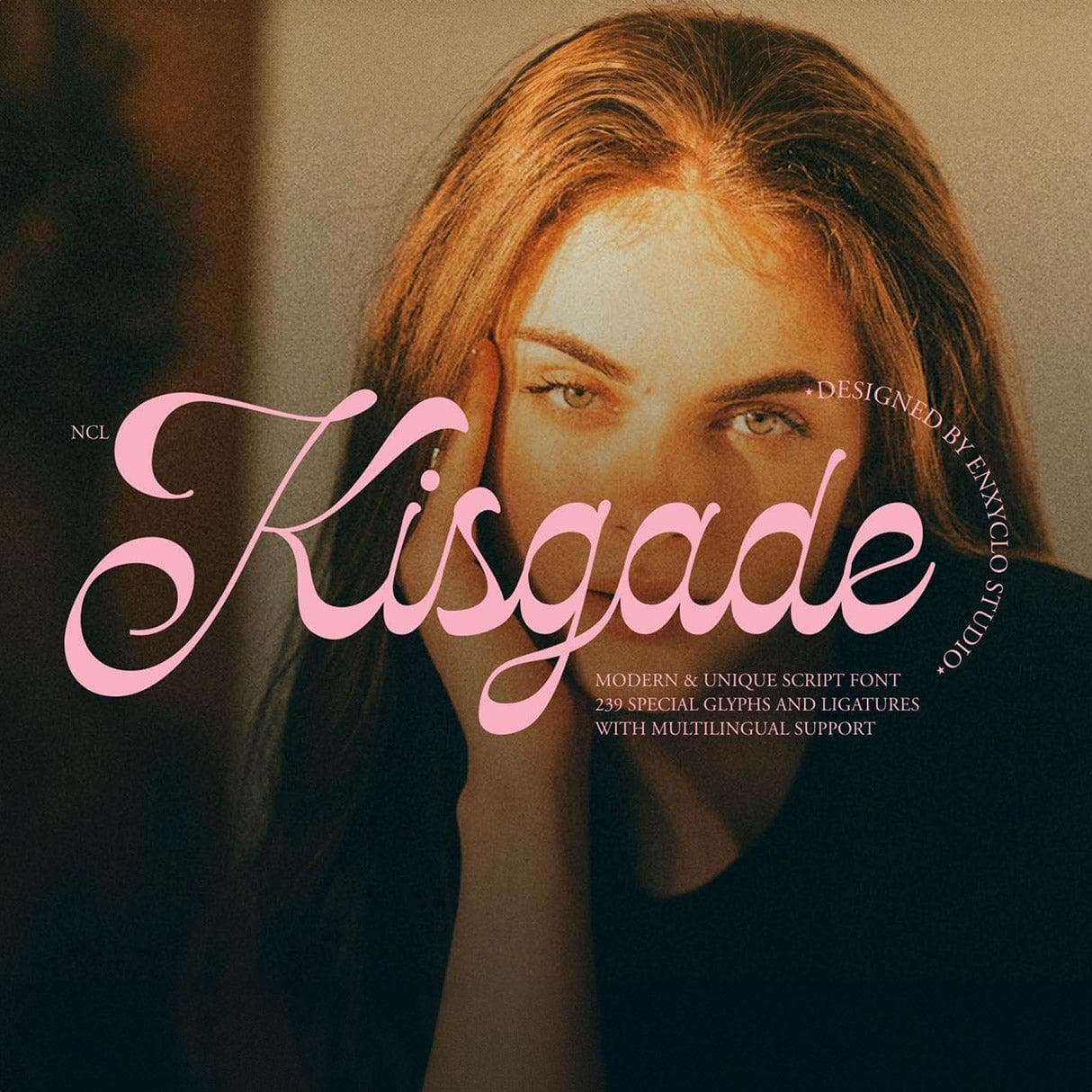
<p>NCL KISGADE is a modern and elegant script font. Masterfully designed to become a true favorite, this font has the potential to bring each of your creative ideas to the highest level! It was purposely crafted to be used in large point sizes, although it doesn’t lose its magic in small point sizes. It is perfect for wedding or romantic event, headline, billboard, magazines, website, titles, poster, branding, and logos. No matter the topic, this font will be an incredible asset to your fonts’ library, as it has the potential to elevate any creation. With this beautiful font, absolutely you can make your project stand out from the rest.</p> <p>FEATURES<br>- True Type Font (TTF)<br>- Open Type Font (OTF)<br>- Web Open Format (WOFF1 & WOFF2)<br>- Contains 239 Glyphs<br>- Uppercase & Lowercase<br>- Numeral, Punctuation & Symbols<br>- Special Ligatures<br>- Support for 68 Languages: Afrikaans, Albanian, Asu, Basque, Bemba, Bena, Breton, Catalan, Chiga, Cornish, Danish, Dutch, English, Estonian, Faroese, Filipino, Finnish, French, Friulian, Galician, German, Gusii, Icelandic, Indonesian, Irish, Italian, Kabuverdianu, Kalenjin, Kinyarwanda, Luo, Luxembourgish, Luyia, Machame, Makhuwa-Meetto, Makonde, Malagasy, Manx, Morisyen, North Ndebele, Norwegian Bokmål, Norwegian Nynorsk, Nyankole, Oromo, Portuguese, Quechua, Romansh, Rombo, Rundi, Rwa, Samburu, Sango, Sangu, Scottish Gaelic, Sena, Shambala, Shona, Soga, Somali, Spanish, Swahili, Swedish, Swiss German, Taita, Teso, Uzbek (Latin), Volapük, Vunjo, Zulu.</p>